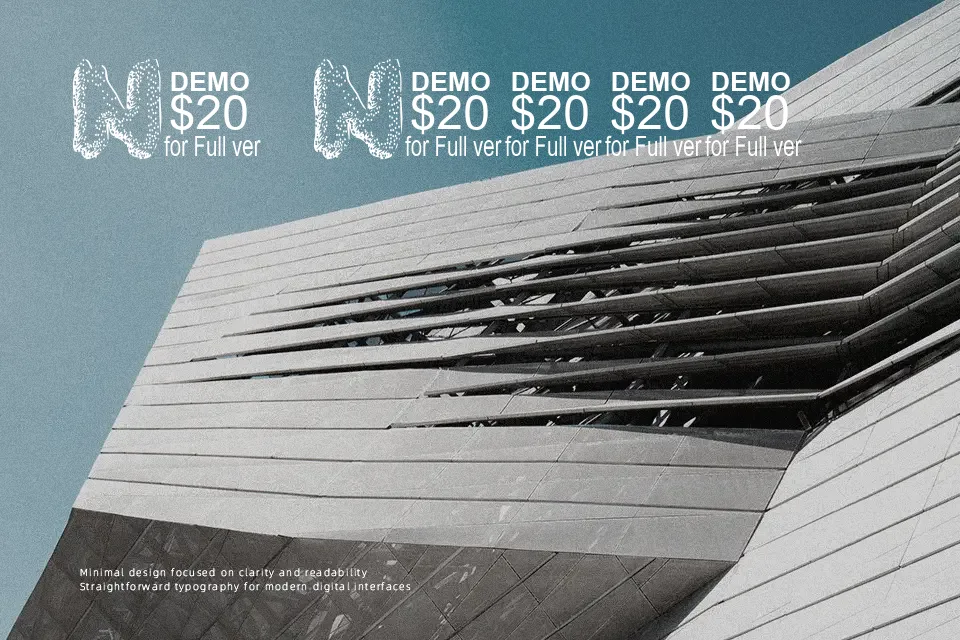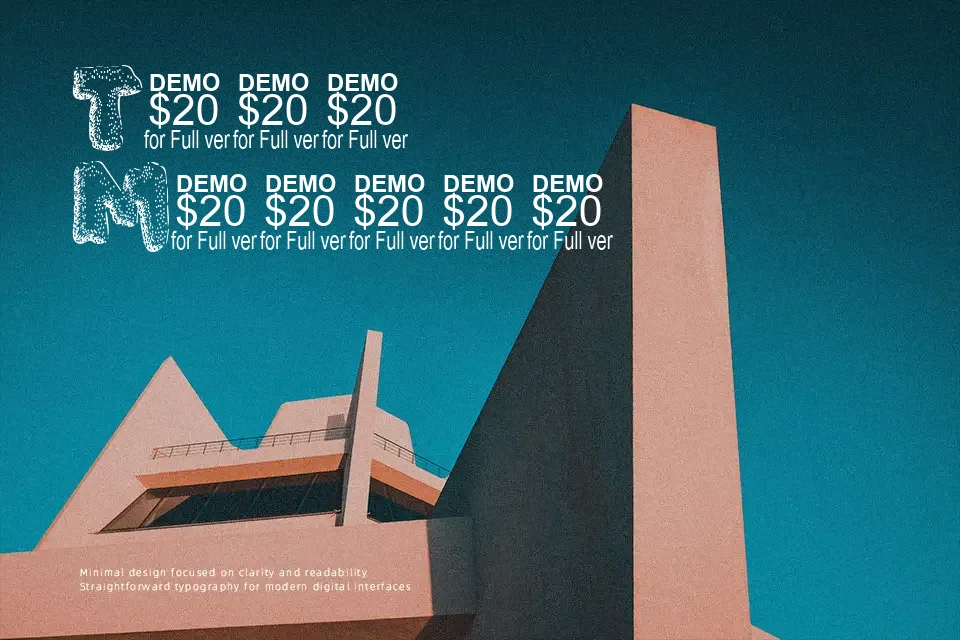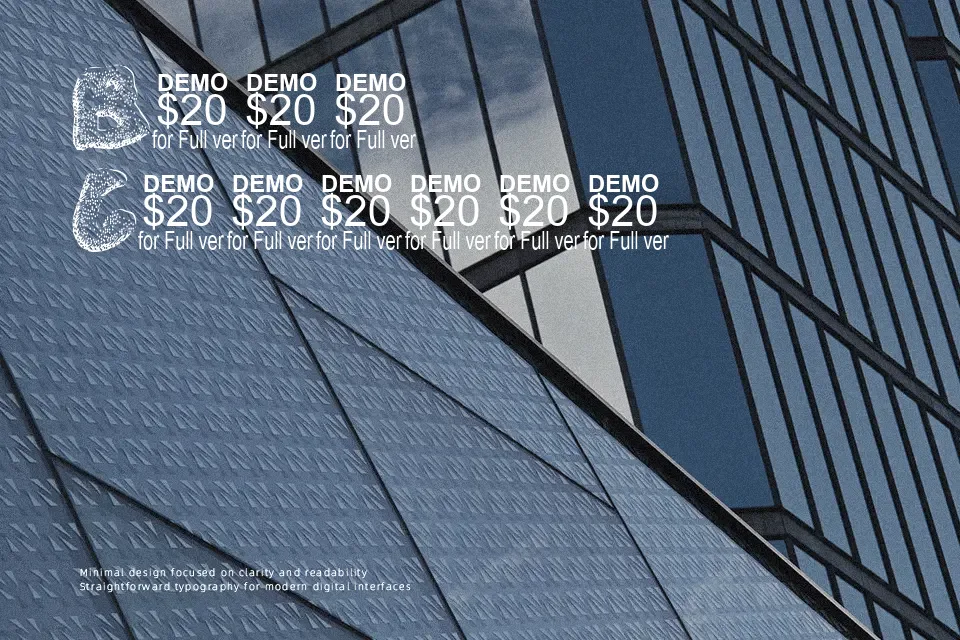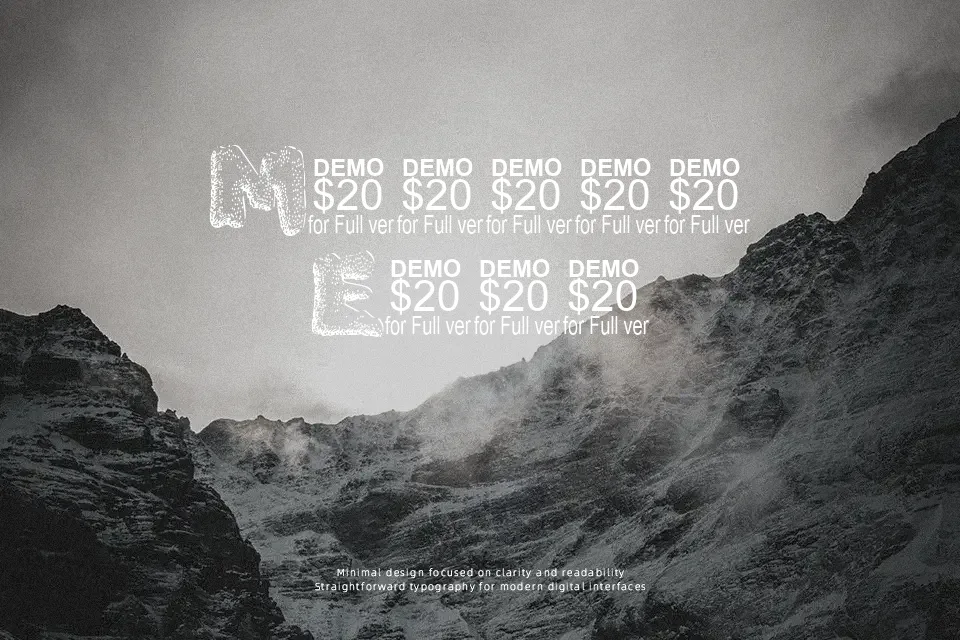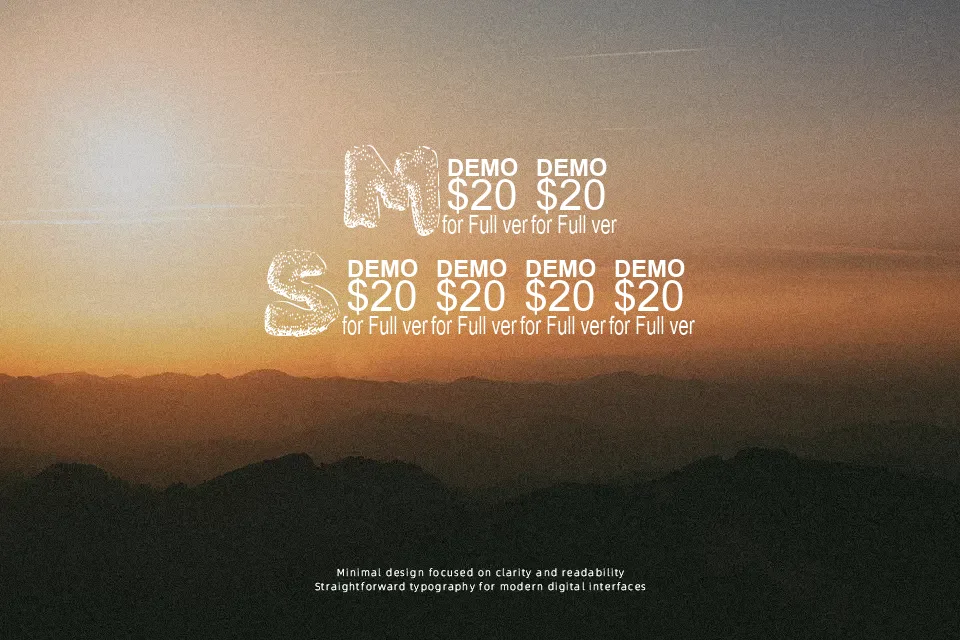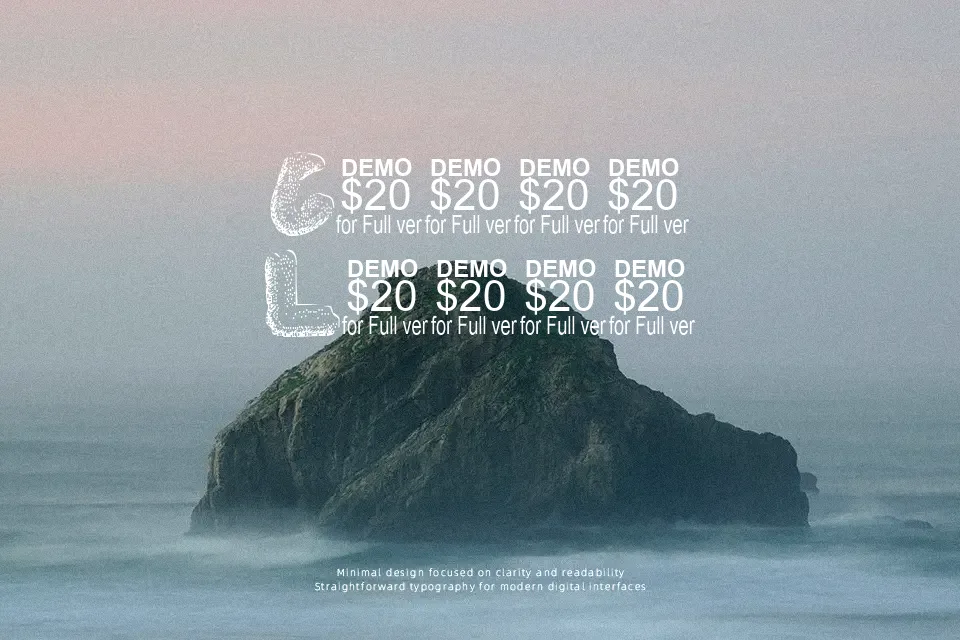
The Blob Font
Built with erratic contours and swollen forms, The Blob Font commands attention across large-scale entertainment titling and pulp cover layouts. The design features heavy, asymmetrical strokes that simulate melting matter, paired with moderately open spacing to prevent adjacent characters from blending together into an illegible mass. Its uneven proportions deliver an unsettled rhythm that enhances display visibility, though readability diminishes sharply once scaled down below subhead dimensions. Dense letterforms and exaggerated outlines make continuous editorial reading impractical. In practical execution, this typeface thrives when applied sparingly to isolated marquee titles, Halloween party banners, or eerie apparel graphics.
Best For: horror movie posters, halloween party invitations, graphic novel titles, seasonal apparel prints
Not Ideal For: long body text, corporate brochures, technical documentation, mobile app interfaces
Perfect for halloween, headline, and packaging, with a dark and cartoon style.